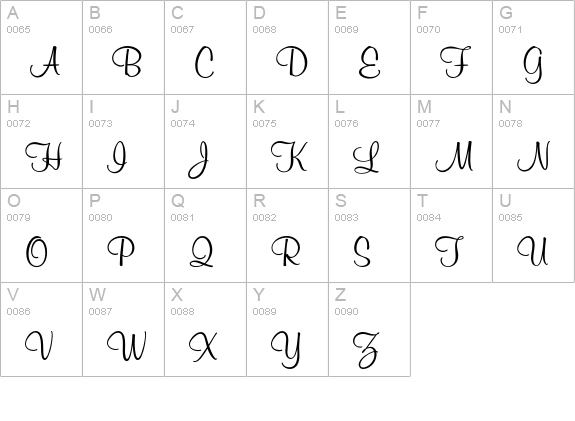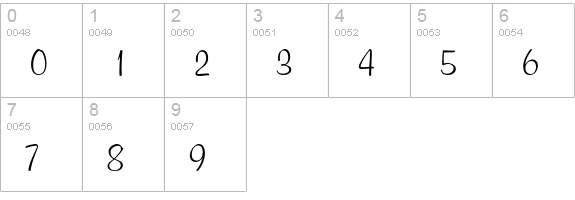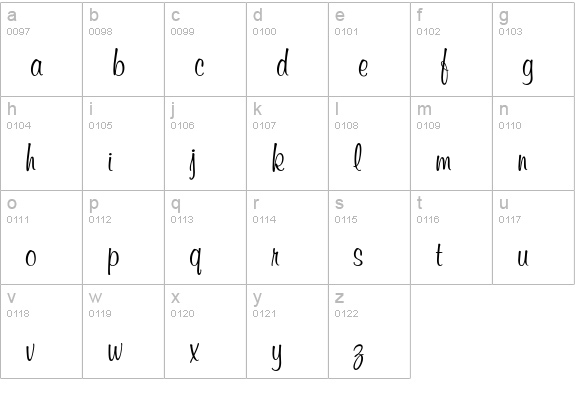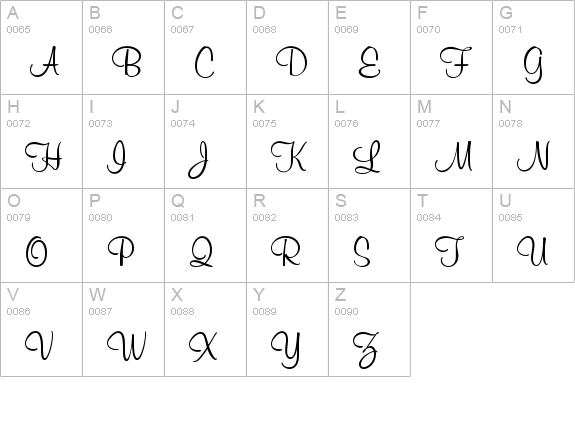
Murray Hill Regular is the standard, neutral variant in the Murray typeface family \xE2\x80\x94 well suited to general body text, paragraphs, and standard typographic work.
Murray Hill Regular font is a classic and elegant typeface that exudes sophistication and charm. With its timeless design and clean lines, this font is perfect for a wide range of projects, from branding to editorial design. The sleek and stylish look of Murray Hill Regular will add a touch of class to any project, making it a versatile choice for designers and creatives alike. Best of all, Murray Hill Regular font is freely available to download at FontsMarket.com. This means that you can easily access this beautiful typeface and incorporate it into your designs without any cost. Whether you're working on a professional project or a personal endeavor, Murray Hill Regular font is sure to elevate your work and leave a lasting impression. Download it today and experience the beauty and elegance of this stunning font for yourself.